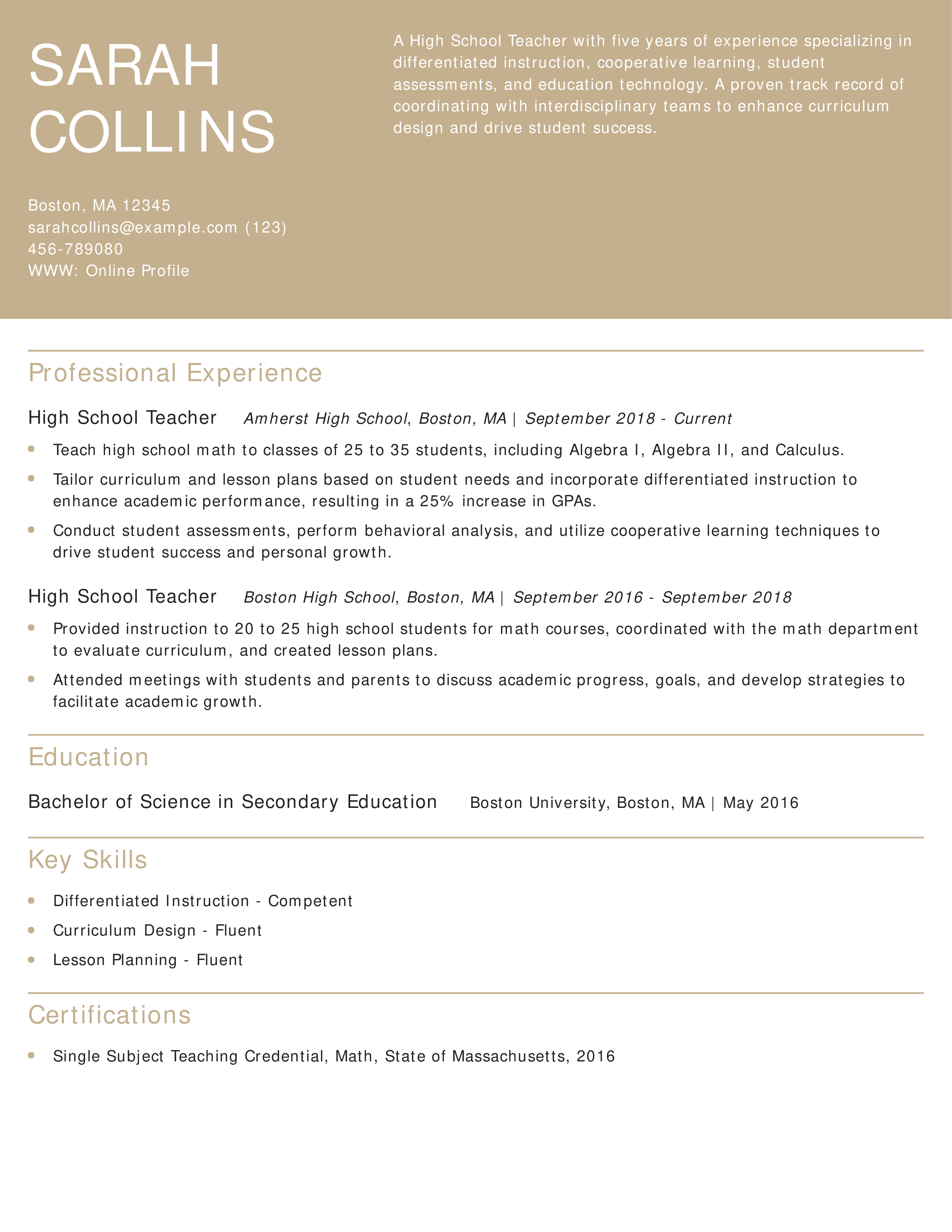
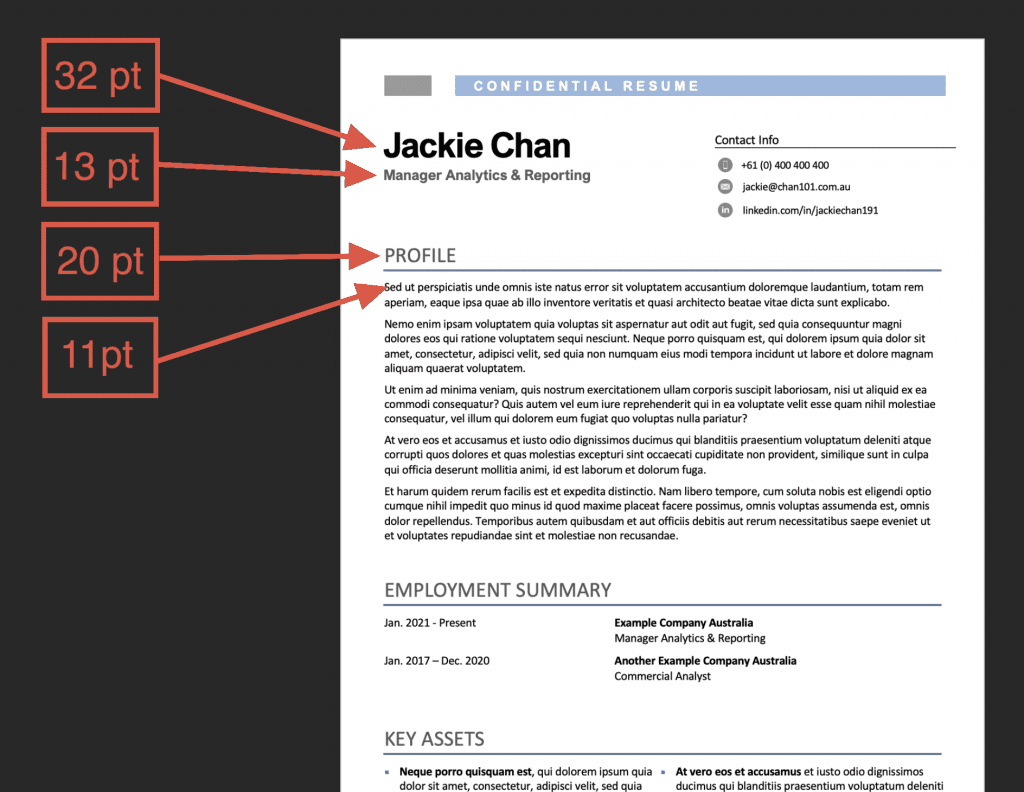
Ensuring consistent display for all viewers If I'm applying for a government job, are there any specific font recommendations I should follow?
what is a good font for a resume
- Selecting a font that reflects your personality within appropriate boundaries
- Maintaining a professional and timeless look
- Ensure readability and consistency; if linking to external portfolios, consider web-safe fonts
- Improved aesthetics, readability, and a sense of polish
- Identifying effective font choices in practice Considering the target audience when choosing a font
- A historical perspective on resume typography Expert opinions on good resume fonts
- Organizing information clearly with typography What are some potential downsides of using a font that is very widely used (e.g., Arial, Times New Roman)?
- Focusing on strong content, clear formatting, and strategic use of white space
- The importance of PDF format for resume sharing Troubleshooting font issues on your resume
- Conveying attention to detail through typography What are some resources for staying up-to-date on current trends and best practices in resume design and typography?